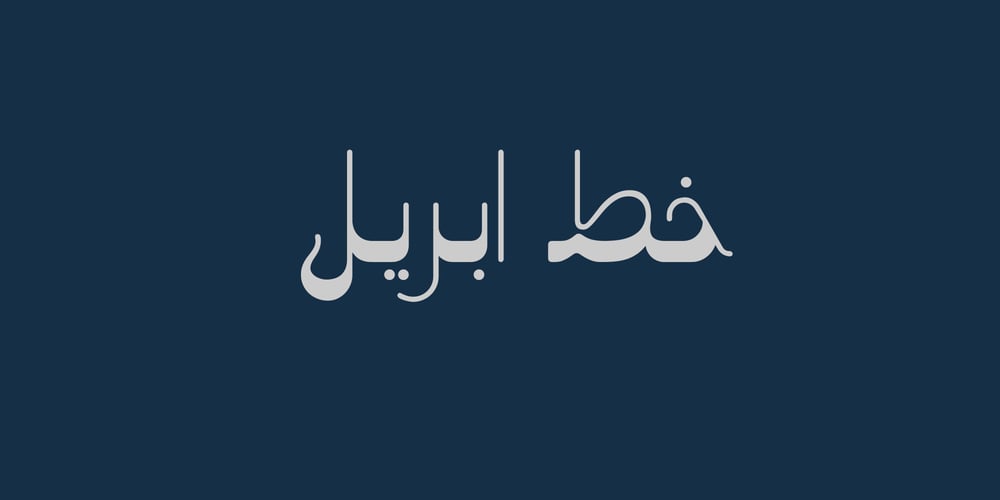
QTSApril Font Family was designed by Mohammed Abd El khalik and published by QafType. QTSApril contains 1 styles and family package options. April font was initially designed with a different style compared to other Arabic typefaces